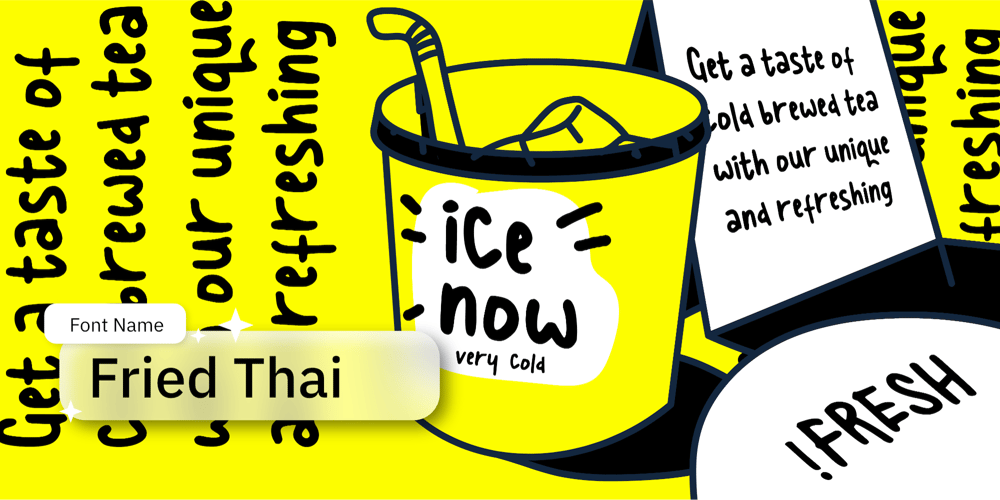
Fried Thai
Fried Thai font
Fried Thai Font Family was designed by Wahyu Eka Prasetya, Afiat Sukmaraga and published by Hati. Fried Thai contains 1 styles and family package options. A casual hack-writing font for foodie fun. Imagine a menu that pops with personality, where the font itself beckons you to dig into a juicy burger or sip on a frothy milkshake. That’s the vibe we’re aiming for with this casual hack-writing font, perfect for young restaurants, cafes, and any establishment with a laid-back, fun atmosphere